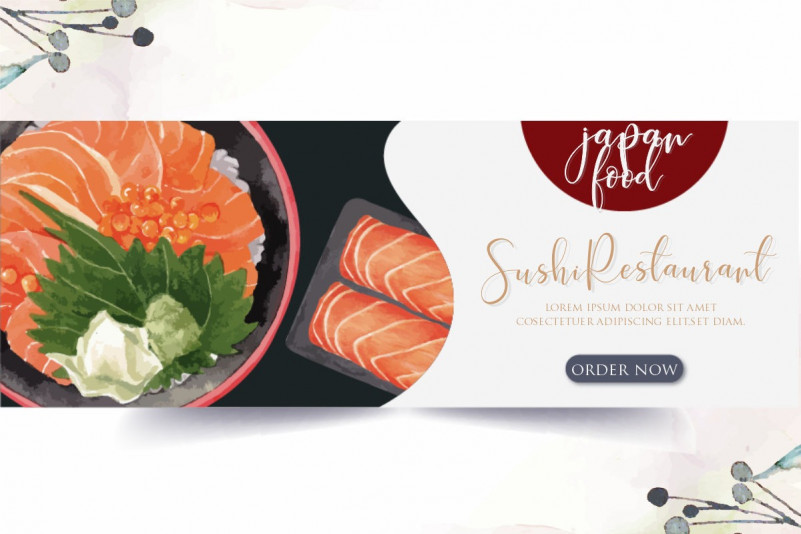
Hokie Calligraphy Font
Introducing Hokie Font. This is a lovely modern calligraphy font. It’s combining the classic style of calligraphy with a more modern style. It creates a luxurious and elegant look in design. It is was designed by Gilar Studio. It’s a gorgeous, unique and fancy calligraphy font that will turn any design project into a true standout. Get inspired by its unique style! It’s can be used for various purposes such as logos, wedding invitations, t-shirts, letterheads, signage’s, labels, and much more!